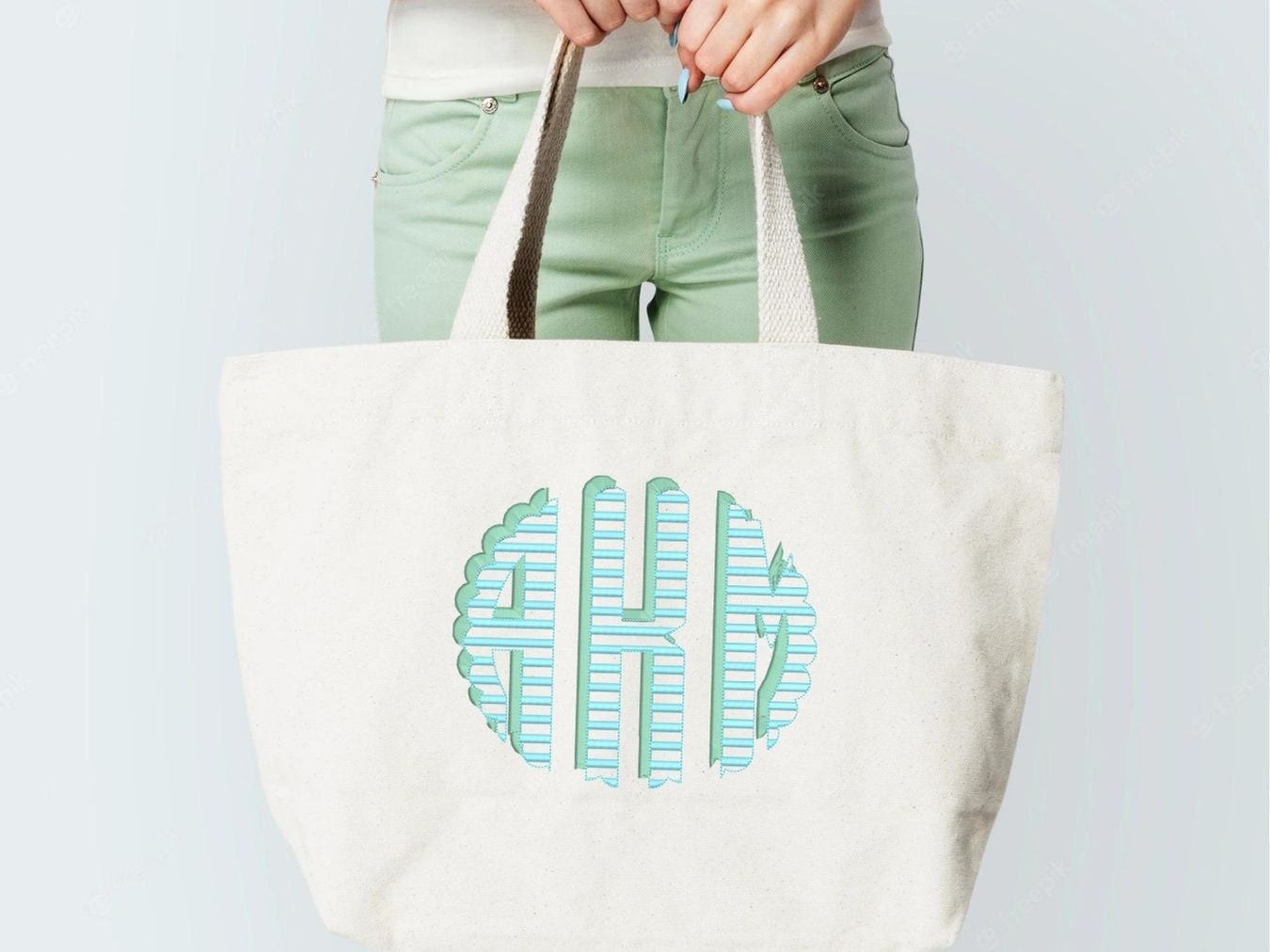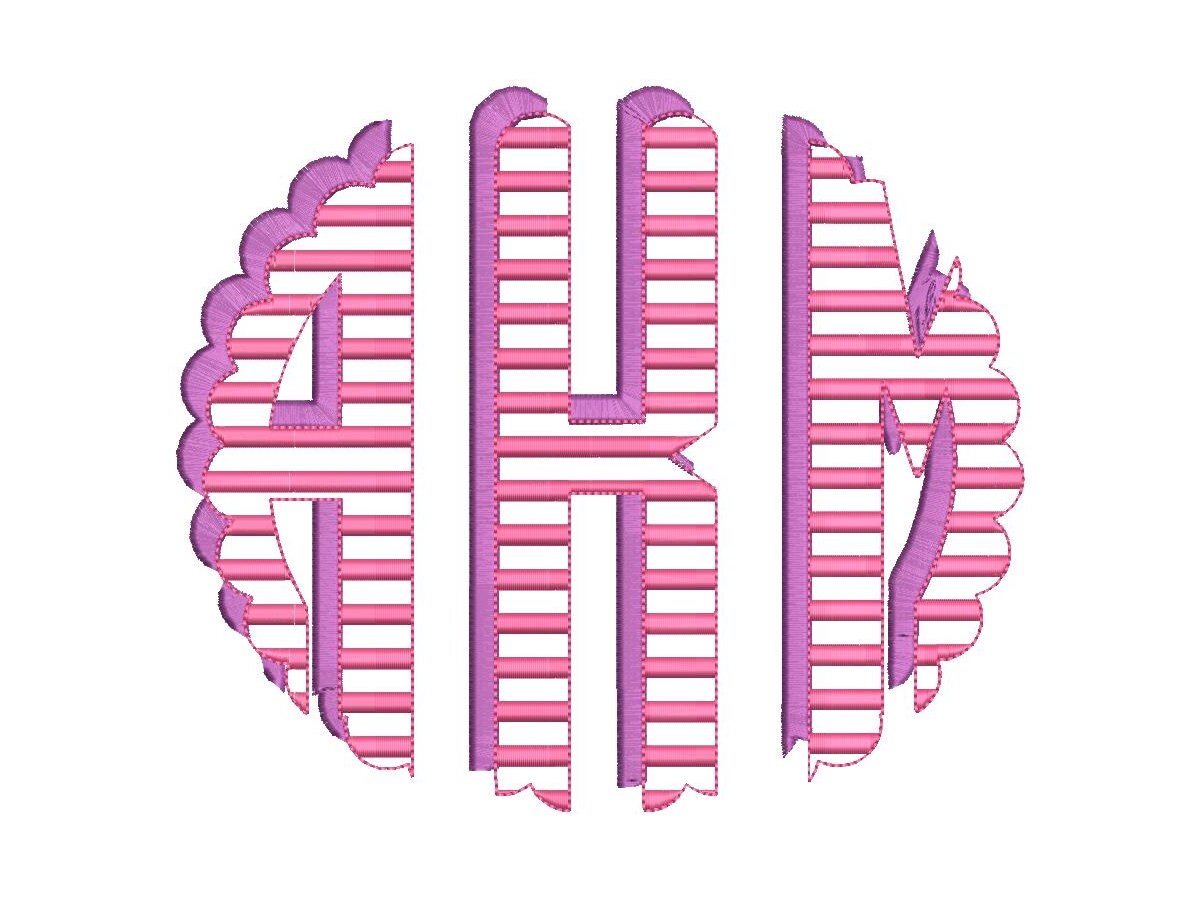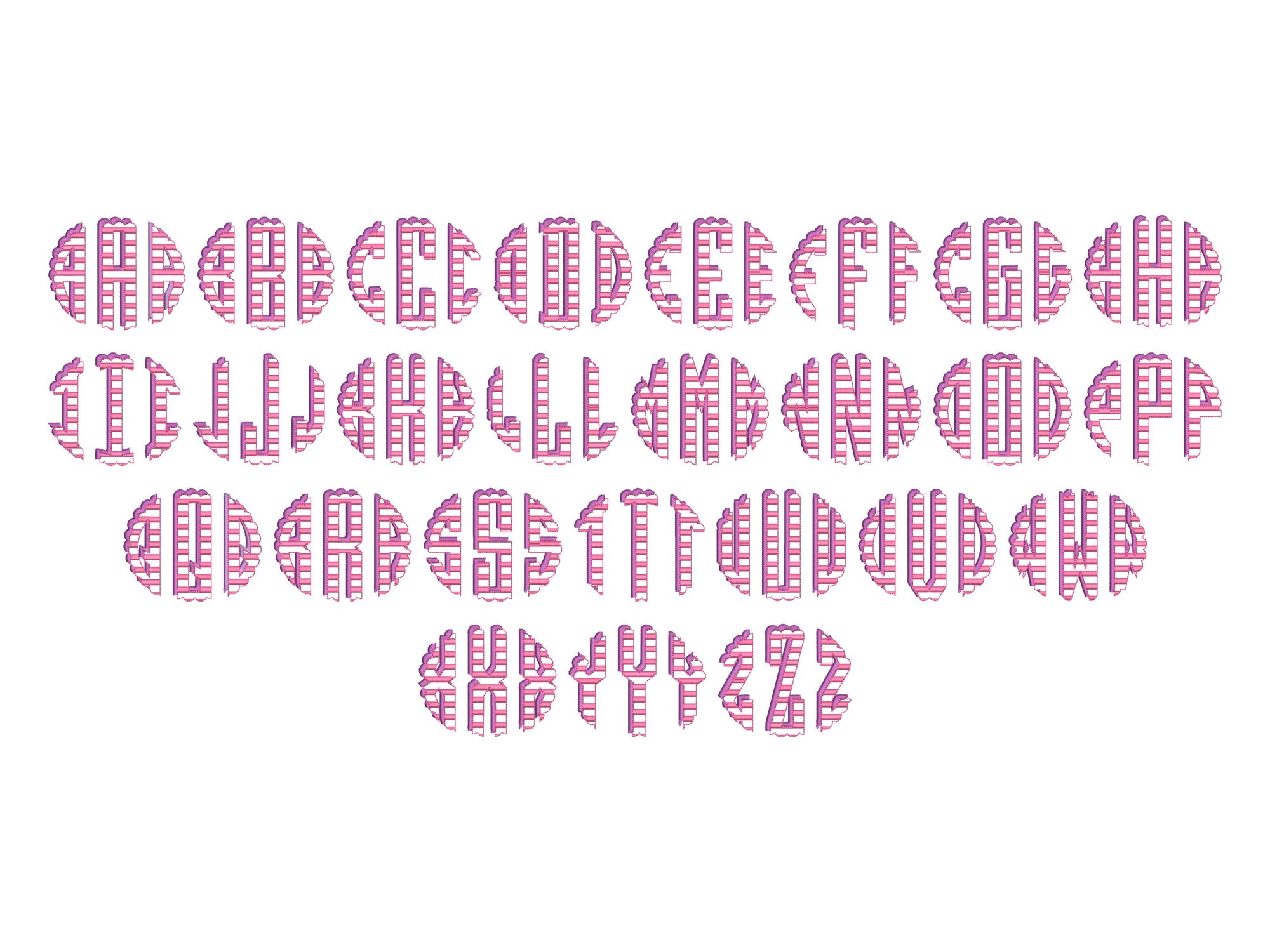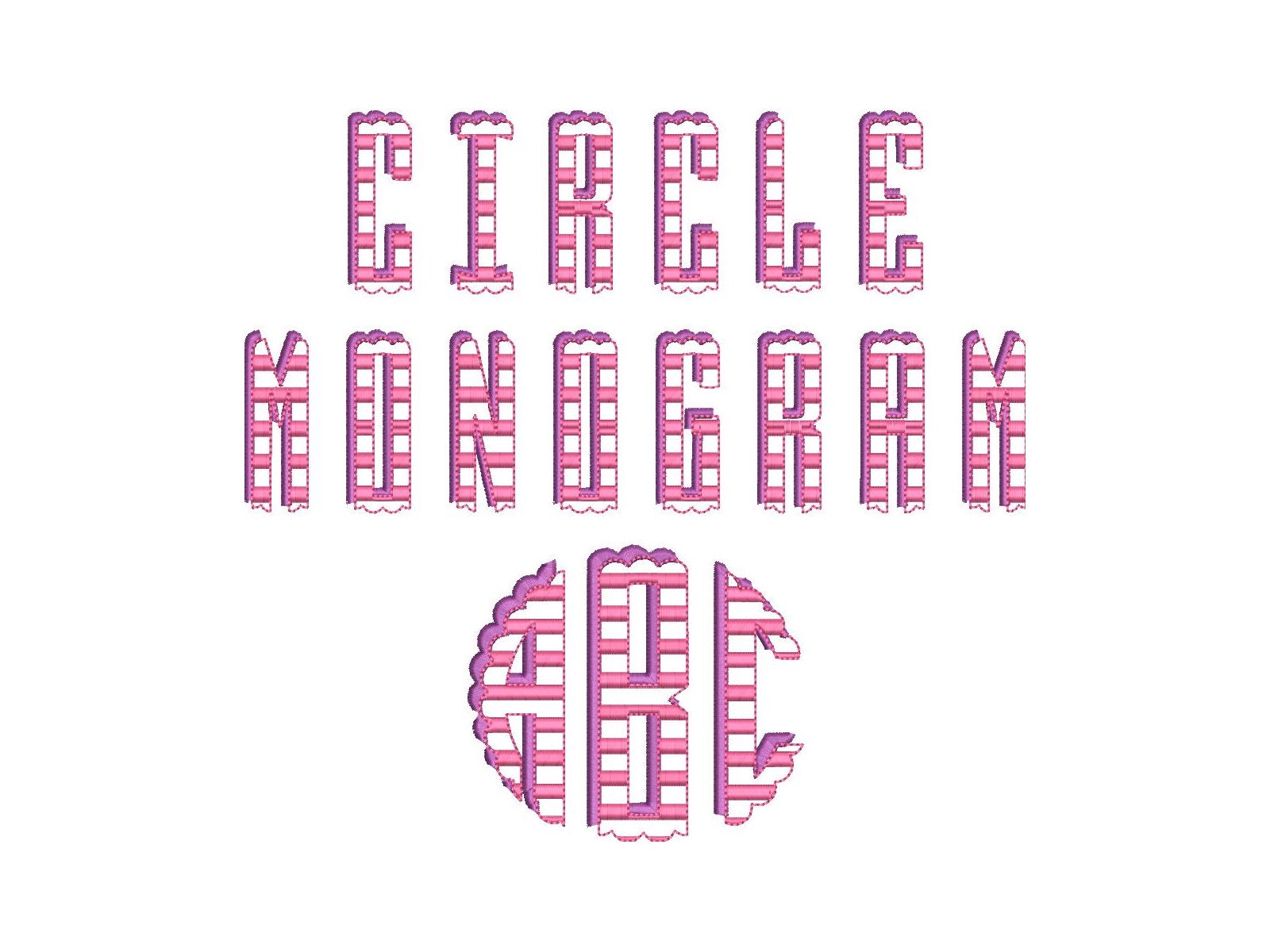
Scalloped Circle Monogram Striped Shadowed FONT machine embroidery designs, classic three letter round monogram letters in many sizes, BX included
The stripes are part of the design.